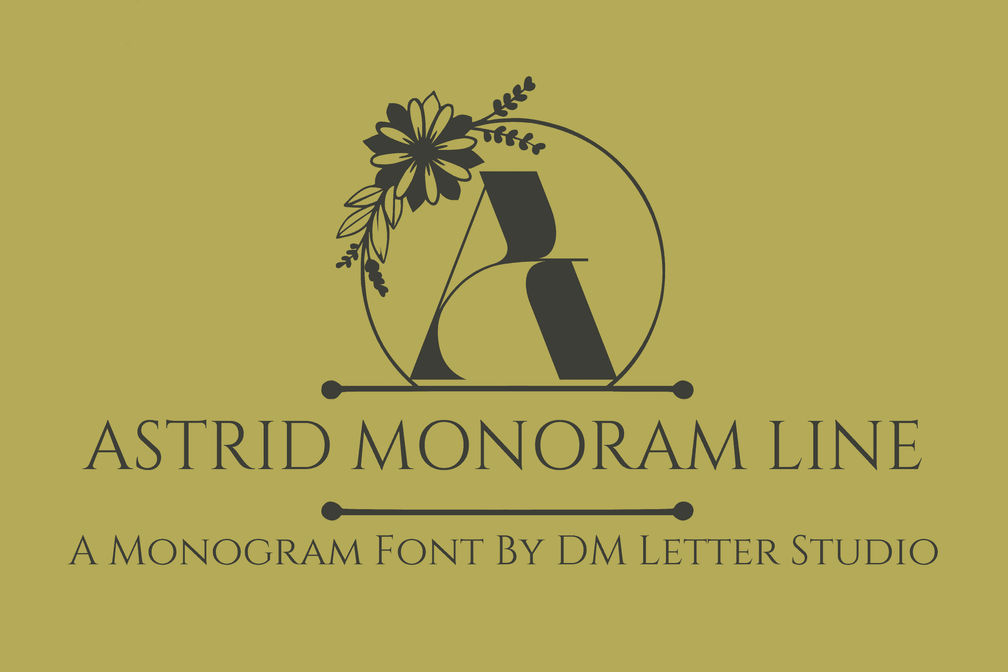
Astrid Monogram Line
Astrid Monogram Line – Elegant Linear Monogram Font
Astrid Monogram Line is a sophisticated and graceful monogram font featuring delicate linework and balanced letterforms. Designed for high-end branding, wedding invitations, luxury stationery, and personalized monograms, this font brings a refined and timeless touch to any design. Its clean and minimalistic style makes it ideal for both modern and classic applications.
• Elegant Linear Monogram Design: Delicate, refined lines for a stylish and sophisticated look.
• Perfect for Wedding & Luxury Branding: Ideal for invitations, boutique logos, personalized gifts, and elegant stationery.
• Timeless & Versatile: Suitable for classic, modern, and minimalist aesthetics.